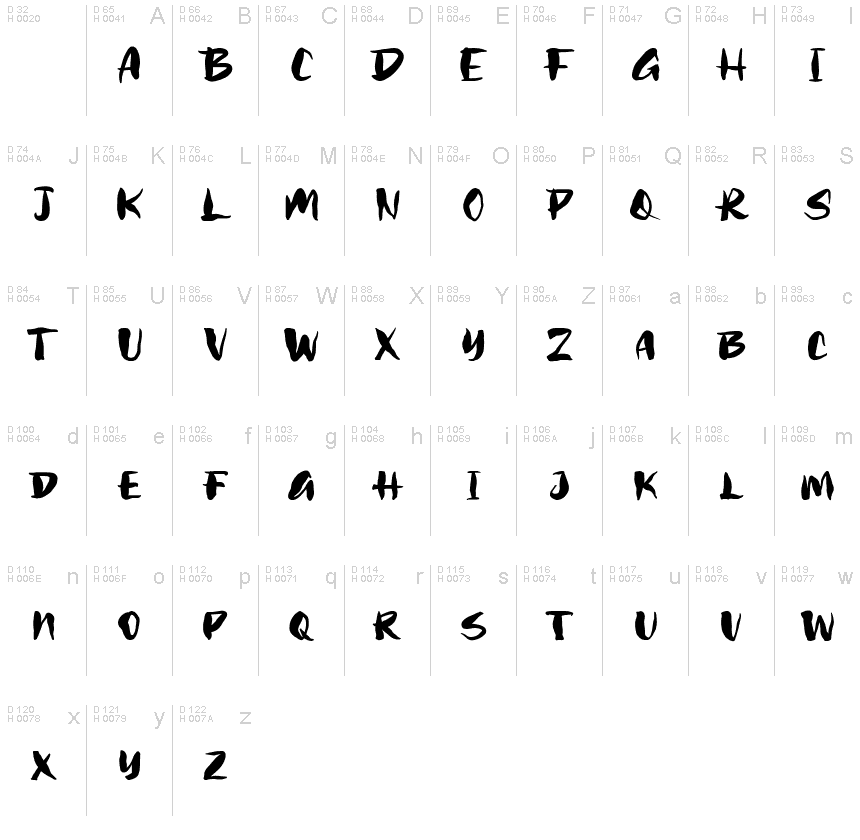
Sack and Jelly Free Regular
Sack and Jelly, a bold brush font by Maulana Creative, brings a touch of artistic flair to your projects.
With its expressive strokes and semi-expanded width, this font is perfect for creating eye-catching headlines and logos that demand attention. Its bold weight adds impact to social media graphics, posters, and packaging designs. Whether you're working on a fashion campaign or an album cover, Sack and Jelly is the versatile typeface that will bring your creative vision to life.